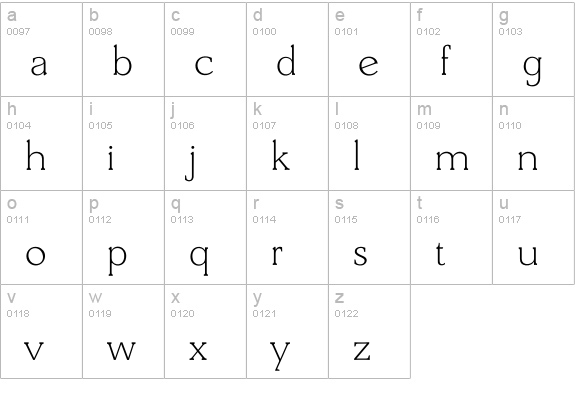
Derrin Xlight font is a sleek and modern typeface that exudes sophistication and elegance. With its delicate thin strokes and clean lines, this font is perfect for adding a touch of refinement to any project. Whether you're designing a logo, creating a poster, or working on a branding project, Derrin Xlight is sure to make a statement. The versatility of this font allows it to be used in a variety of design applications, from print to digital. Its minimalist yet stylish design makes it a great choice for conveying a sense of luxury and sophistication. Derrin Xlight is ideal for creating a contemporary and polished look in your designs. Best of all, Derrin Xlight font is available for free download at FontsMarket.com. So, whether you're a professional designer looking for a new font to add to your collection or a hobbyist working on a personal project, Derrin Xlight is a fantastic choice. Download it now and elevate your design projects with this stunning typeface.